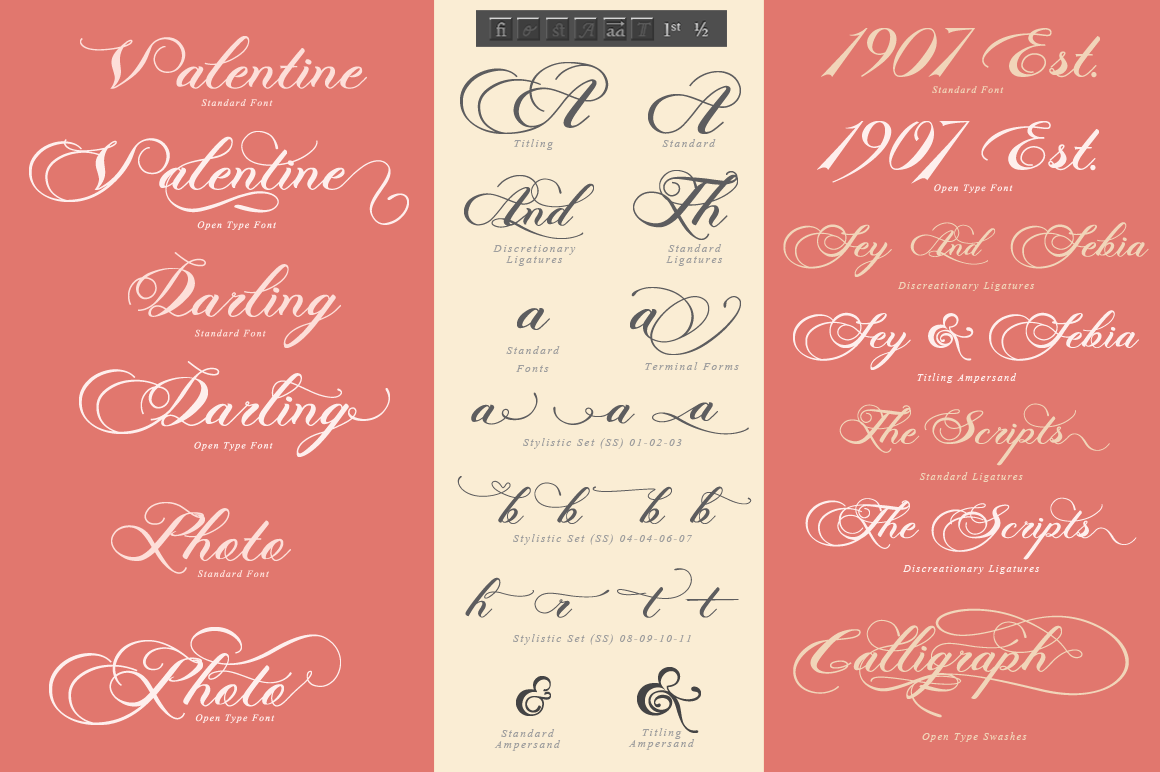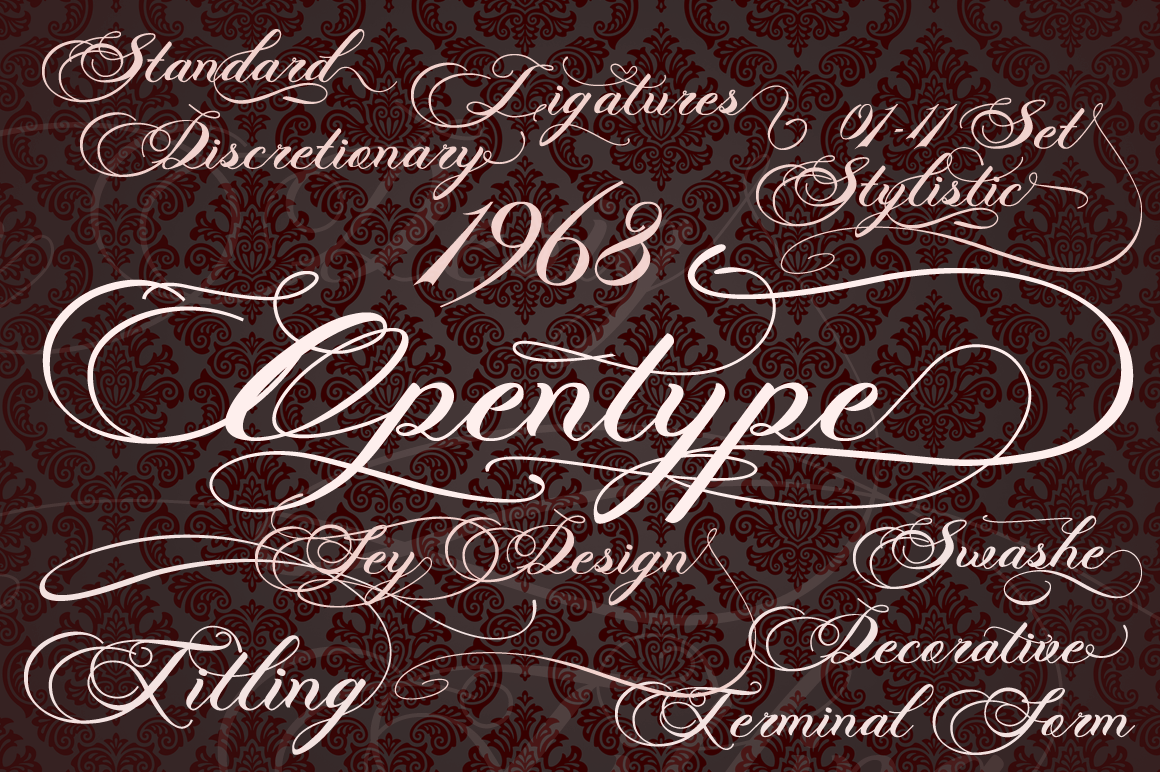
Photograph Font
db-ku.com - Script & Handwritten -- Photograph is a beautiful and extremely elegant script font, with tons of character alternates and stunning embellishments. Photograph is an ideal wedding font, due to its elegant lines and classic calligraphy appeal.